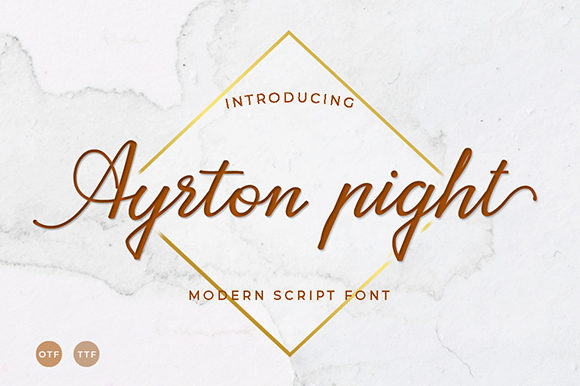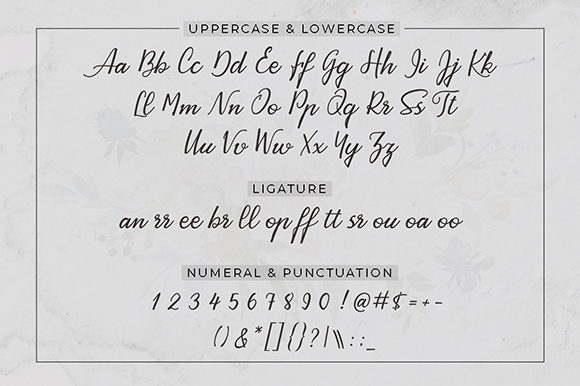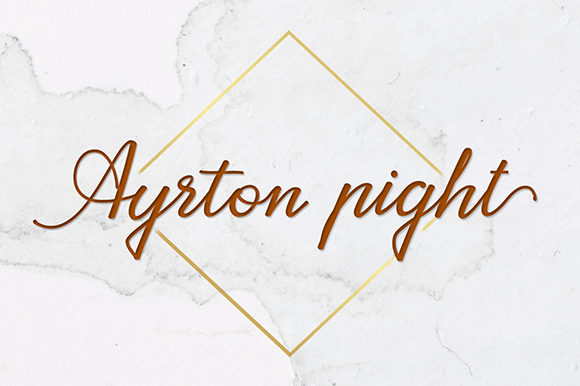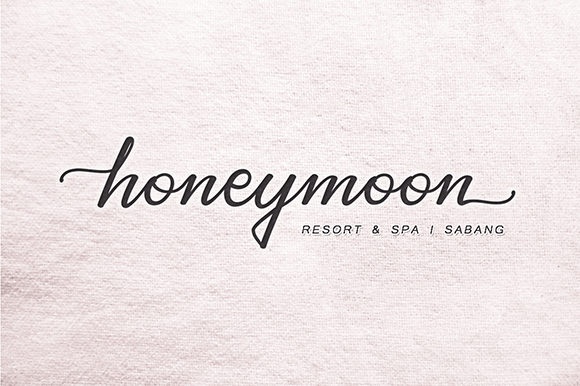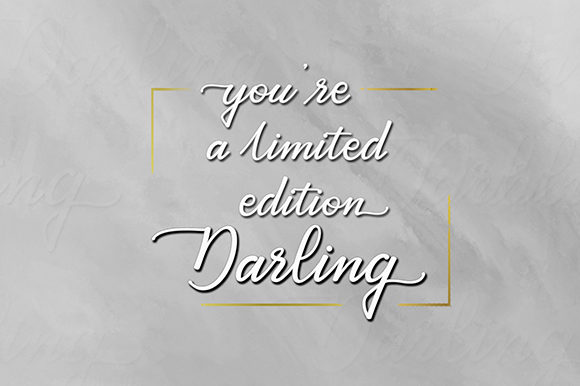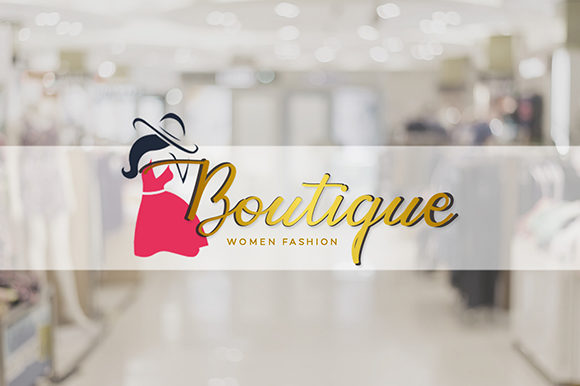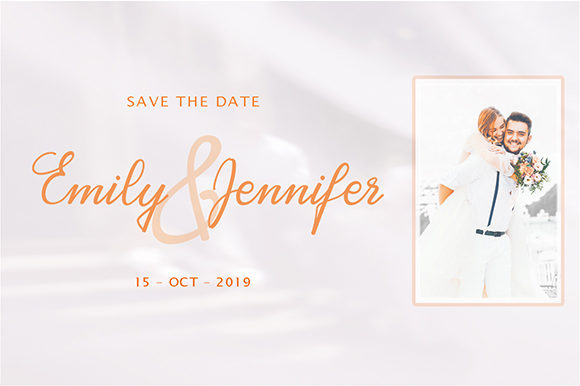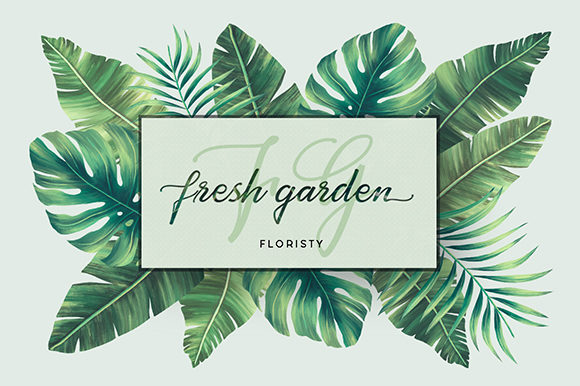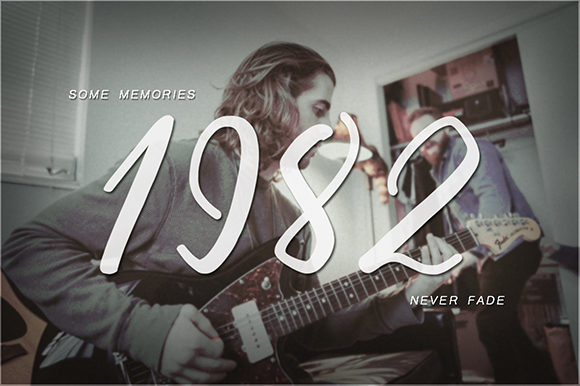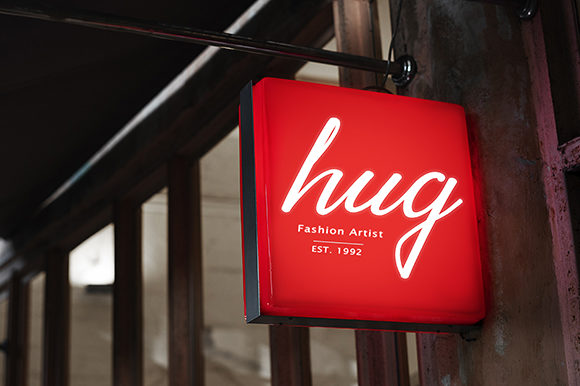
HomeScript FontsAyrton Pight Font Script Fonts Ayrton Pight Font FacebookXPinterestWhatsApp Ayrton Pight Font Poster 2 Ayrton Pight Font Poster 3 Ayrton Pight Font Poster 4 Ayrton Pight Font Poster 5 Ayrton Pight Font Poster 6 Ayrton Pight Font Poster 7 Ayrton Pight Font Poster 8 Ayrton Pight Font Poster 9 Ayrton Pight Font Poster 10 Ayrton Pight Font Poster 11 About Ayrton Pight Font Ayrton Pight is a calligraphic font with beautiful characters. Get inspired by its unique charm. DOWNLOAD NOW People also explored Tokiyo Bold Font Cendiland Font Persephone Font Sparkling Font Sweetest Font Birthday Holiday Font Renatta Willona Font Logbook Font Fried Cassava Font 262 0 TagsAyrton Pight Font Previous articlePerfectly Imperfect Family FontNext articleFastfood Font LEAVE A REPLY Cancel reply Comment: Please enter your comment! Name:* Please enter your name here Email:* You have entered an incorrect email address! Please enter your email address here Website: Save my name, email, and website in this browser for the next time I comment. Personal Use Free Hatia Script Personal Use Free Read more about this font Panaroe Personal Use Free Read more about this font Black Jalal Personal Use Free Read more about this font Kinda Sweet Personal Use Free Read more about this font BLOG How to Cut Any Font on Cricut: Convert a Font to SVG (Free) Turn any font into a clean SVG so it cuts crisp on Cricut - a quick 3-step workflow using a free font-to-SVG tool. Modern Sans-Serif Fonts That Brands Love in 2025 To increase your work productivity, choose the most readable fonts. Exploring Font Trends